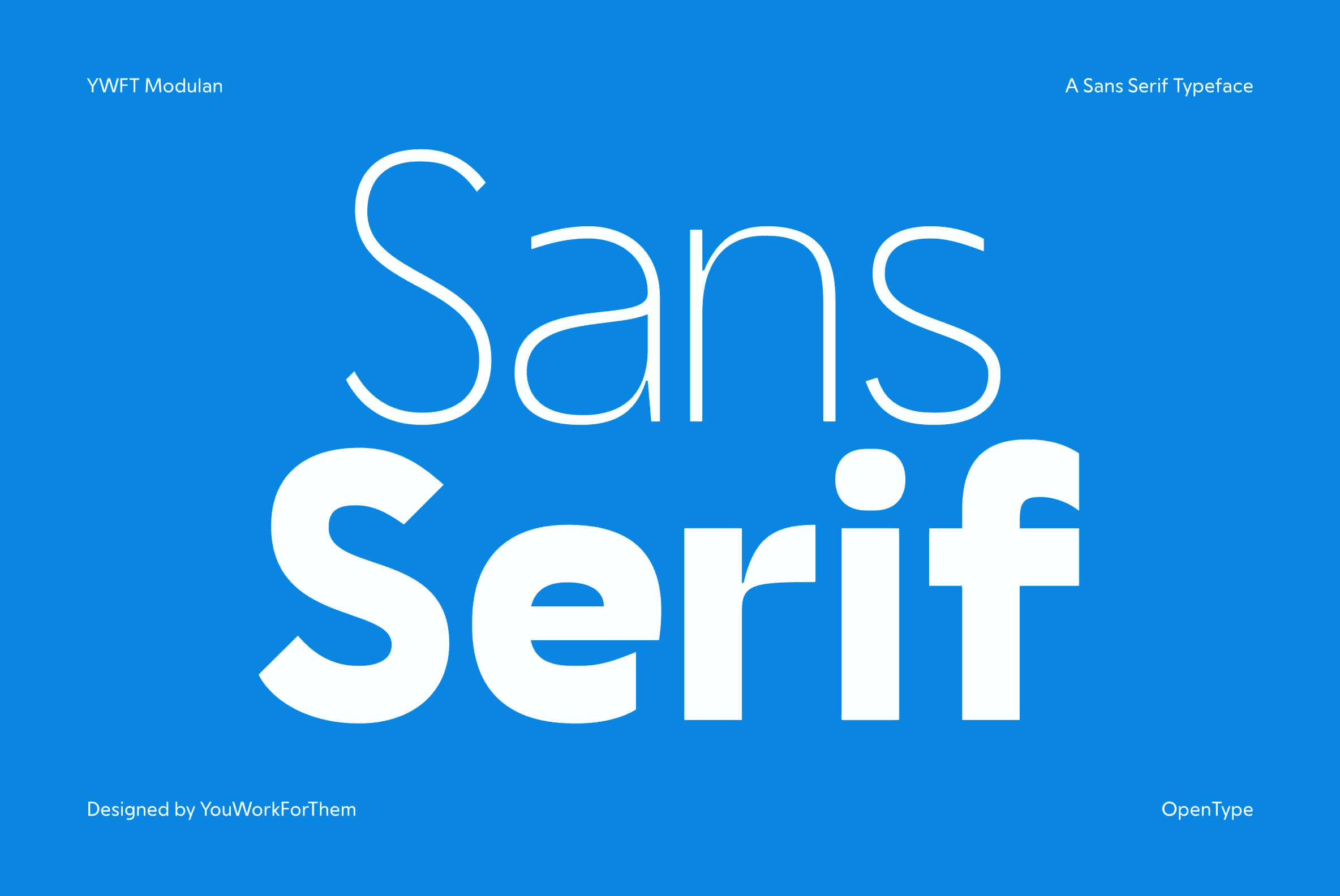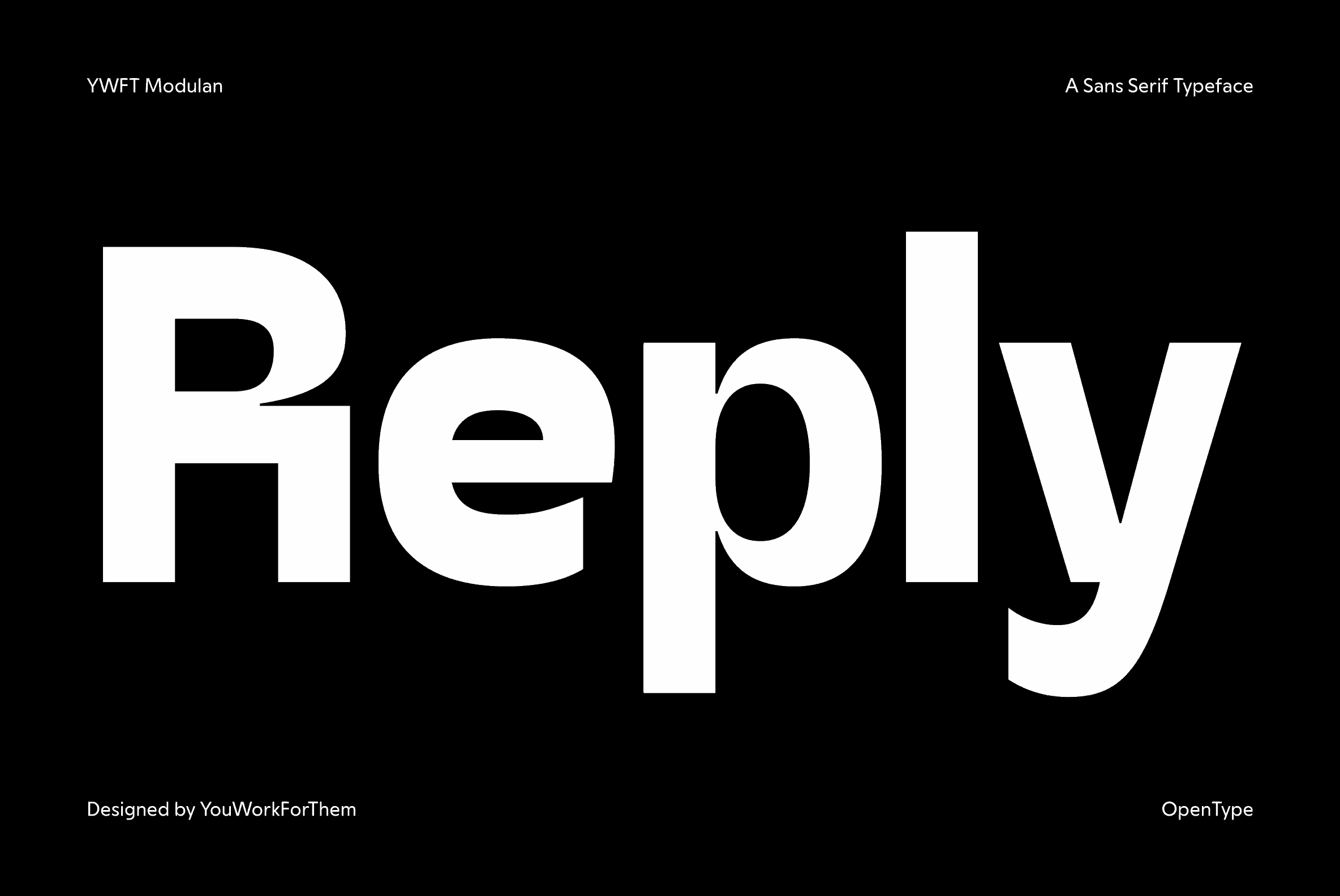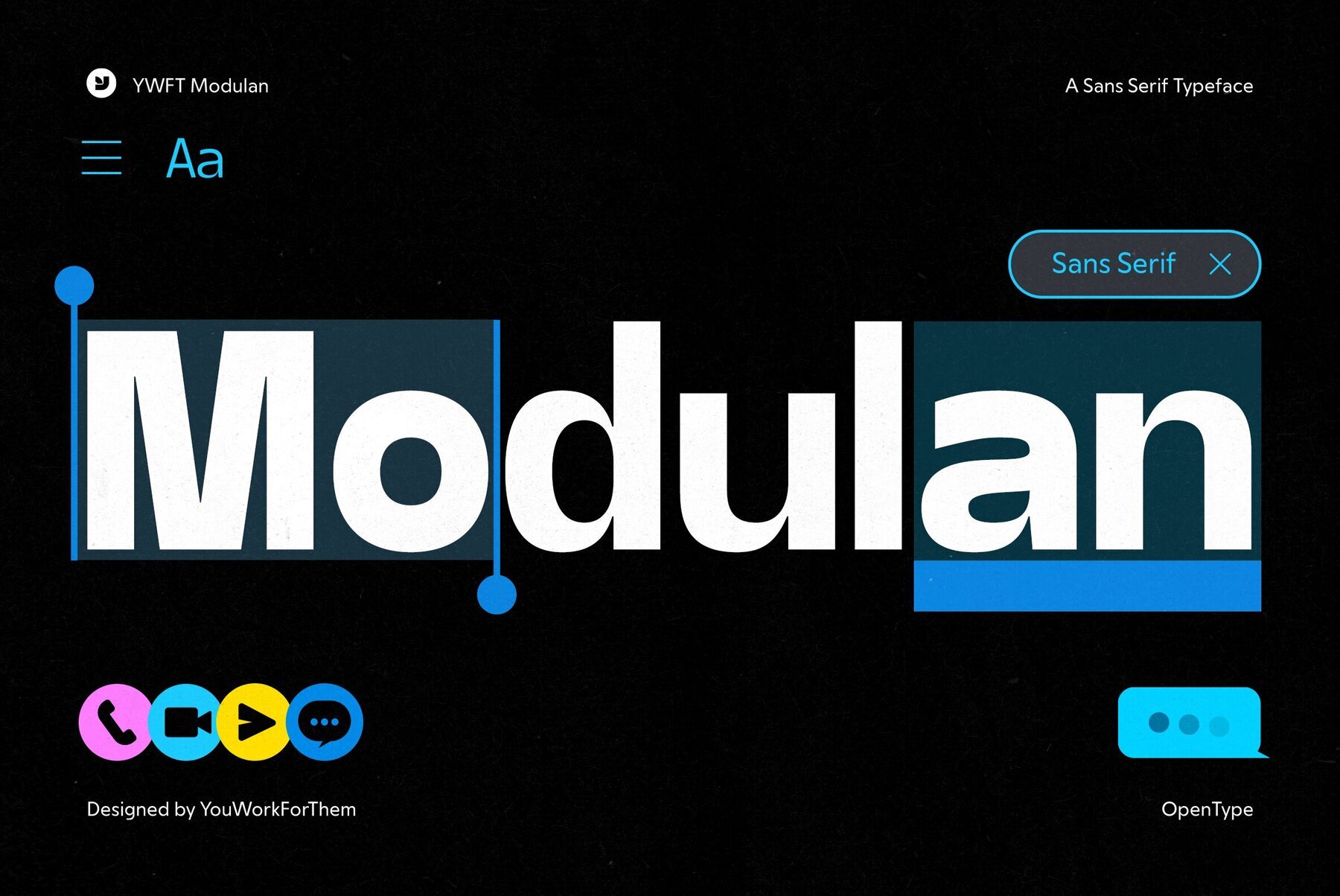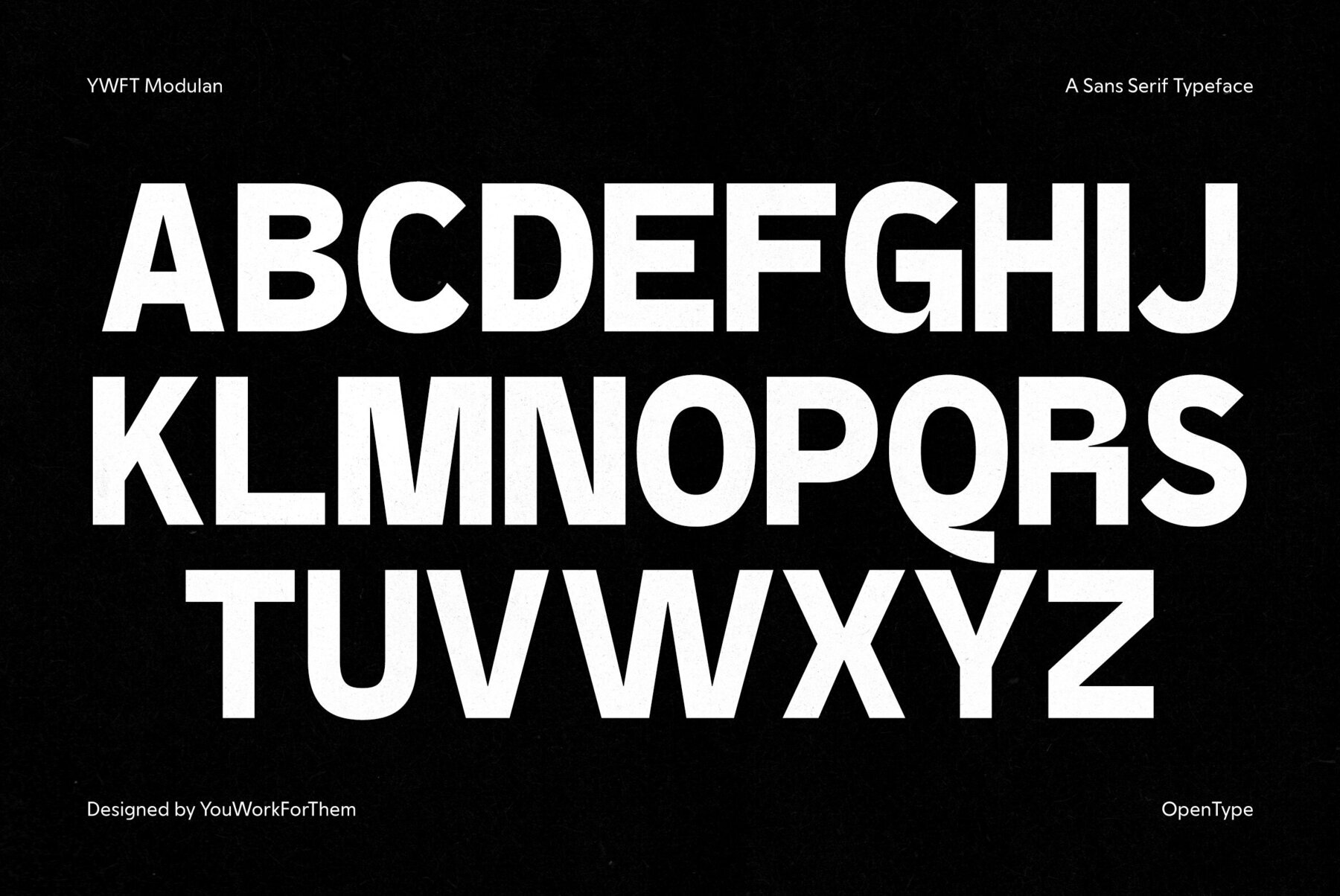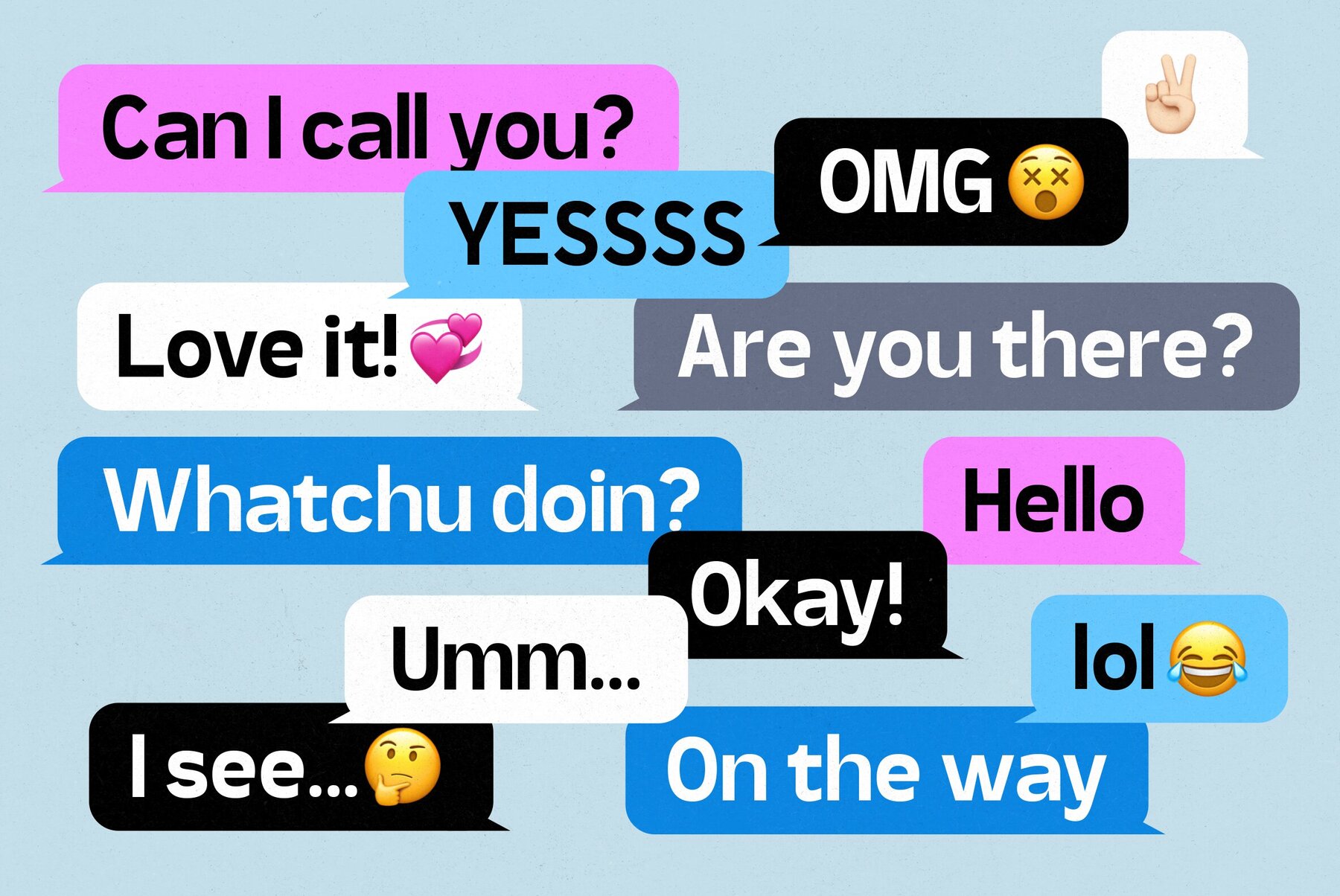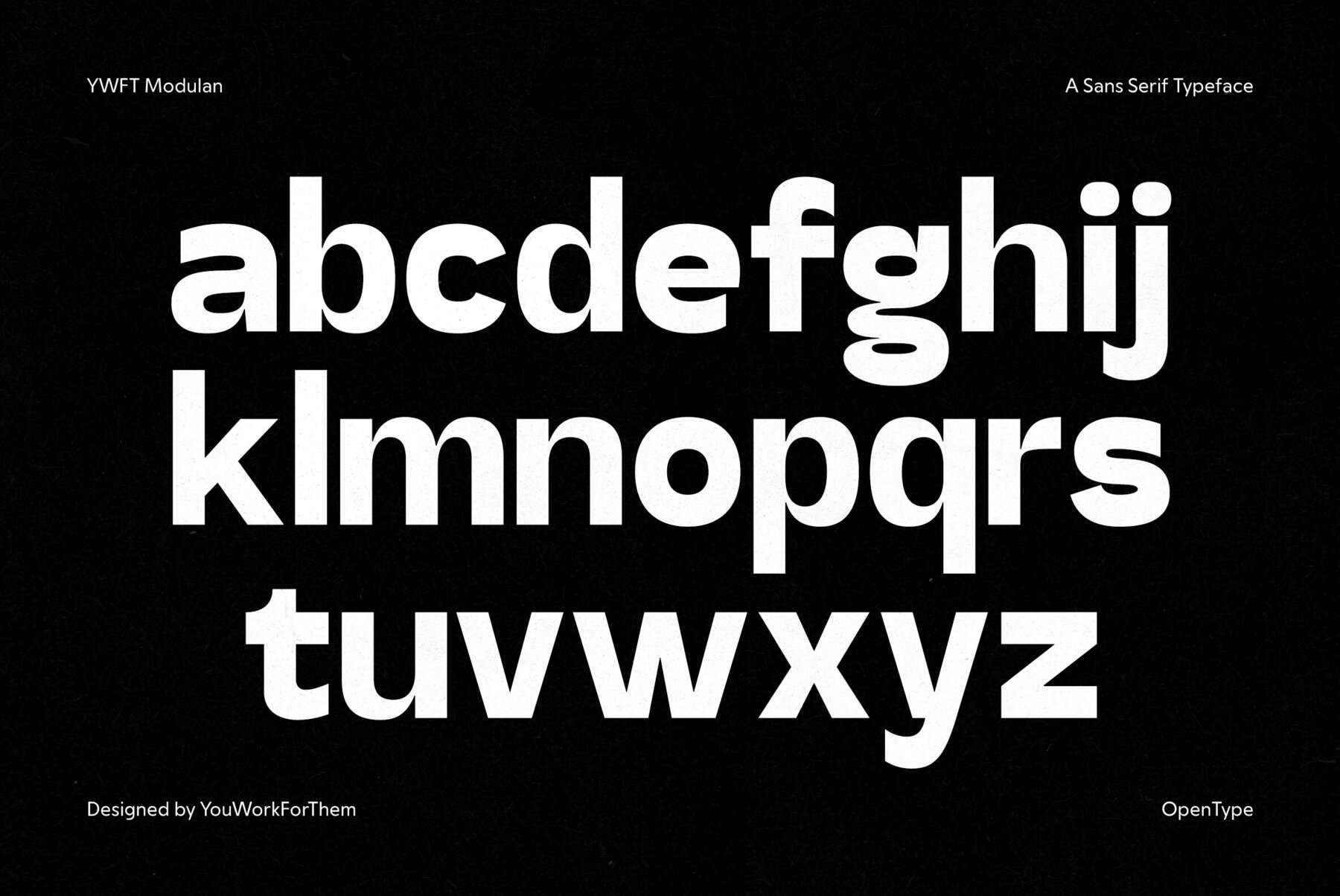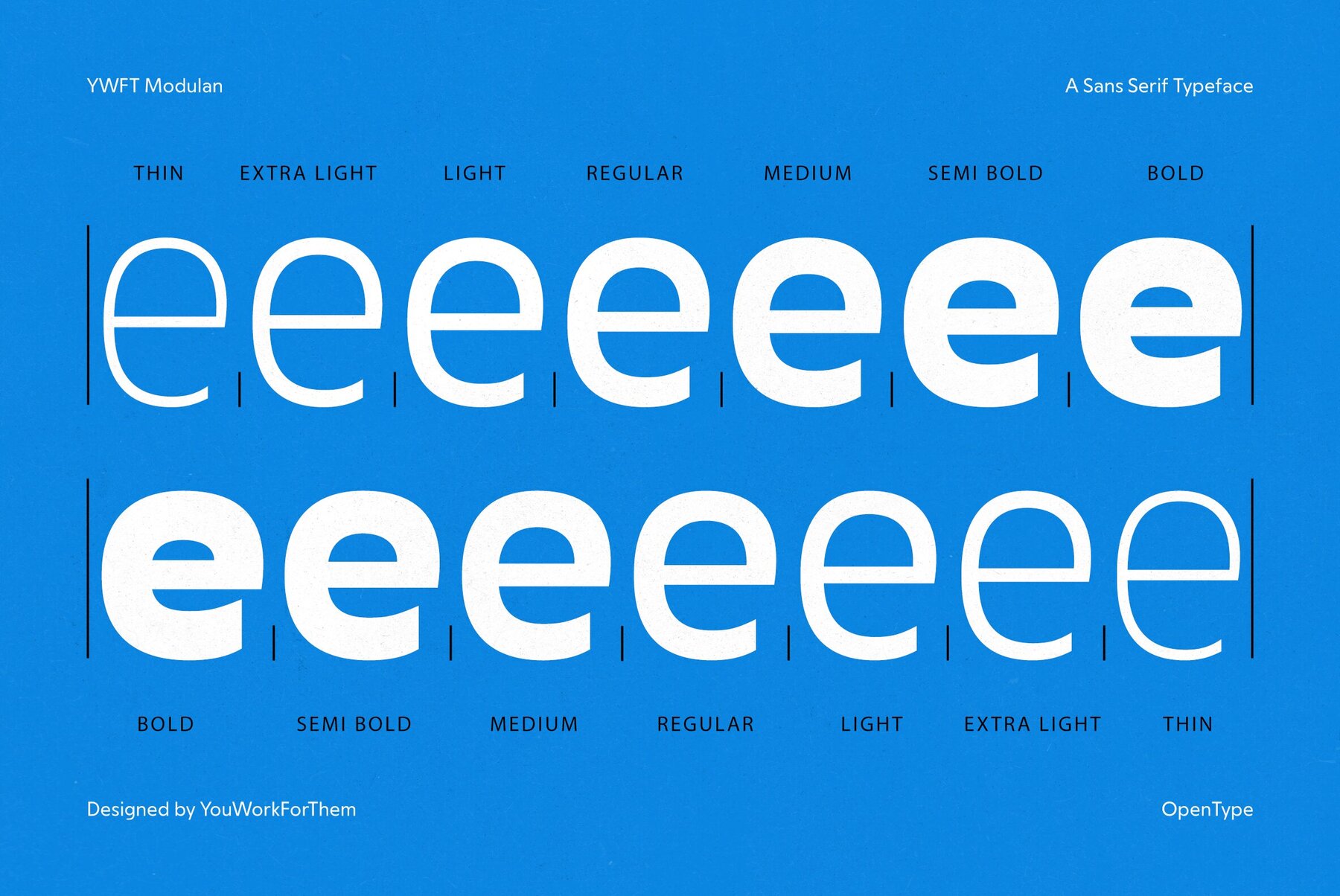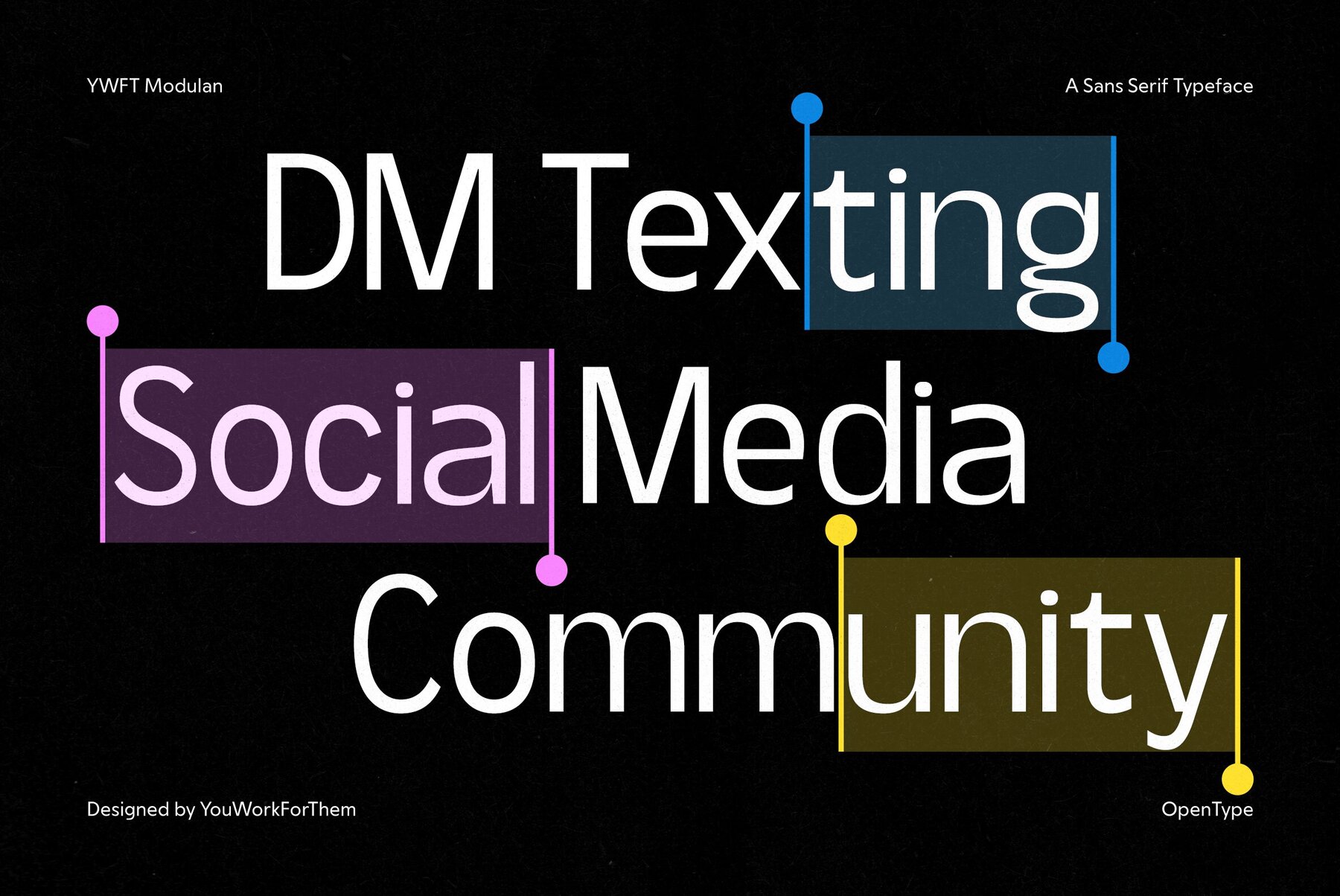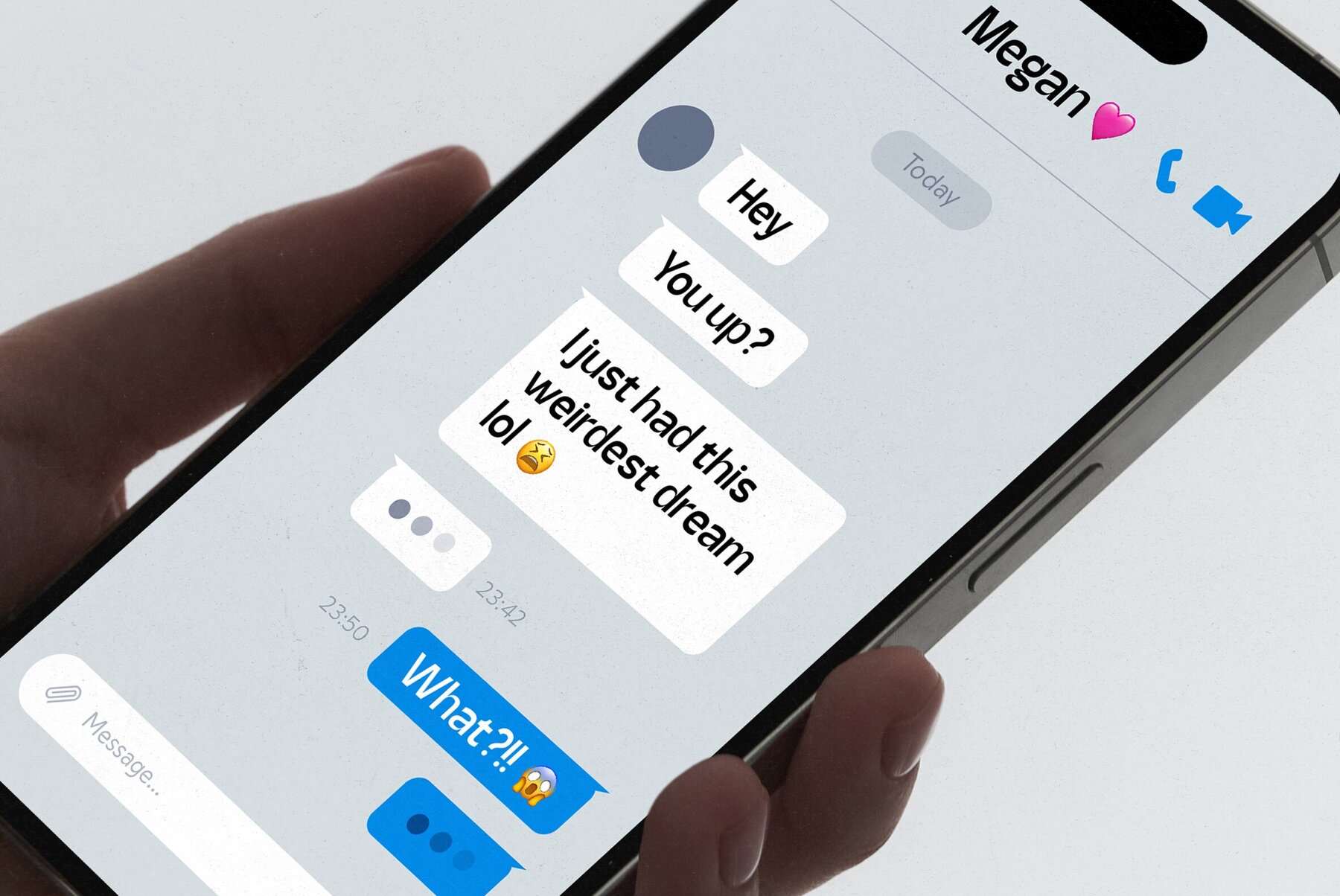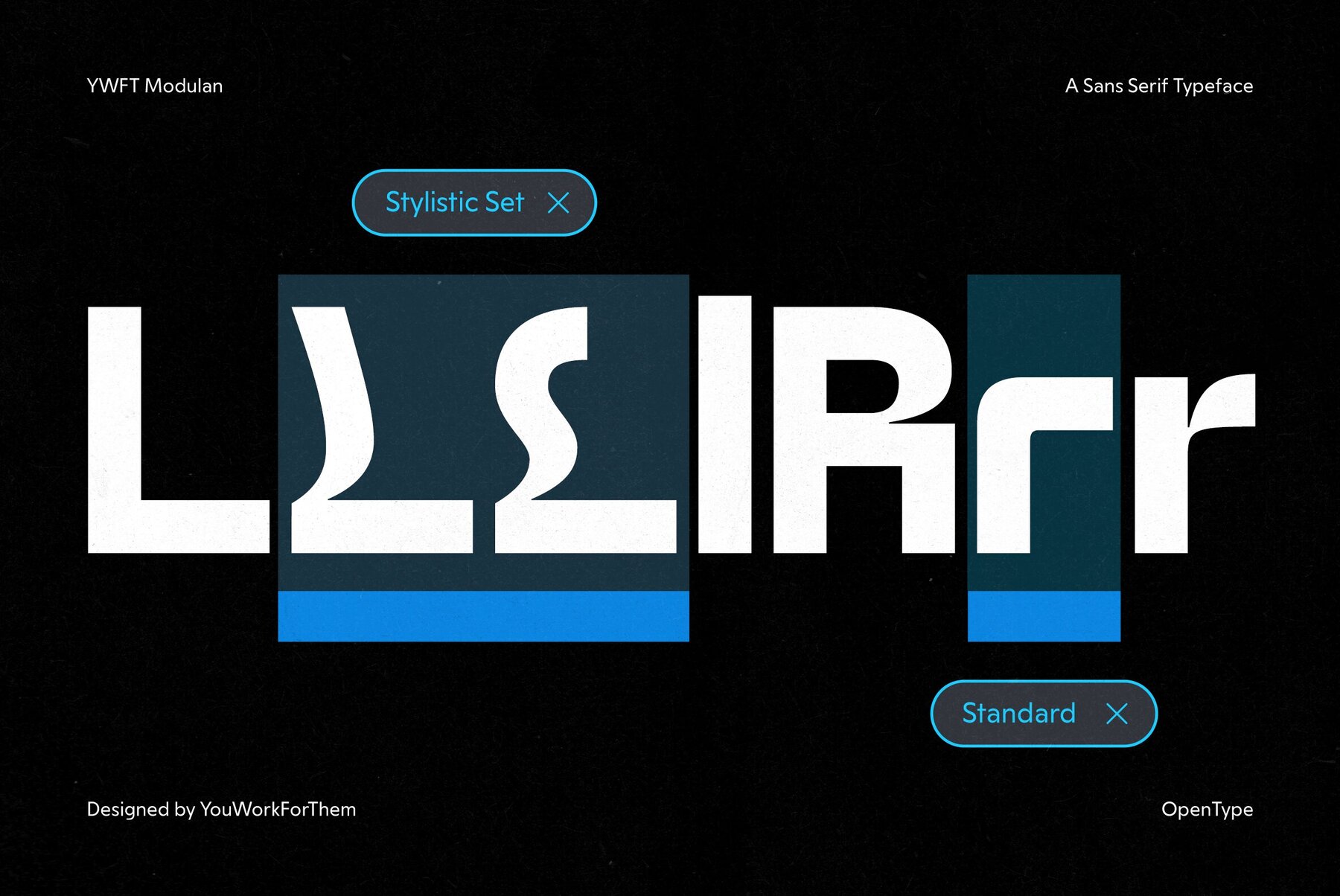
YWFT Modulan Font
YWFT Modulan is a contemporary sans serif designed specifically to resonate with the fast-paced language of today's digital landscapes. Published by YouWorkForThem, this typeface embodies the spirit of modern communication, particularly across social media platforms and mobile interfaces, while steering clear of retro influences and outdated print font models. This is a newly crafted typeface, offering a harmonious blend of humanist expression and geometric precision, clearly seen in its unique characters like the 'R'. It strikes an elegant balance, providing clarity in both headline and body text. YWFT Modulan offers a versatile family of seven styles: It supports a varied range of OpenType features to enhance control and stylistic complexity: These features enable nuanced hierarchies and scalable designs, ideal for editorial layouts, app interfaces, campaign graphics, and social media content. Modulan strips away obsolete licensing models, catering to the needs of today's designers who manage tight budgets and timelines. Its clean, assured tone makes it suitable for versatile applications—whether in-app interfaces, motion graphics, or brand identities. YWFT Modulan's typographic voice is contemporary, intentional, and built for practical use.YWFT Modulan: A Typeface for the Digital Era
7 Font Styles: A Comprehensive Typeface Family
Modern and Functional Typeface